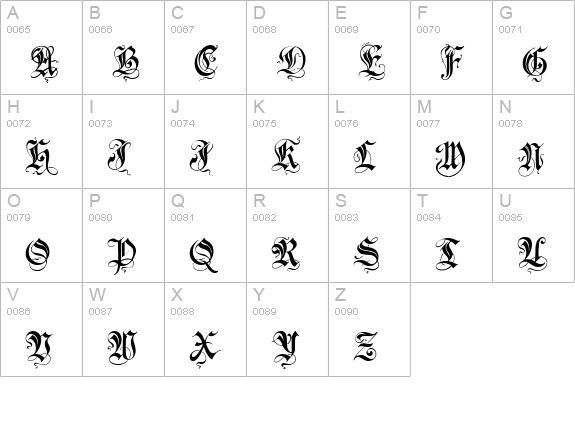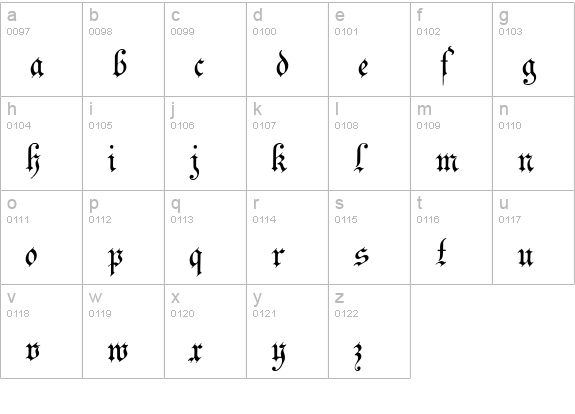
Zenda Font Details
Introducing Zenda font, a modern and stylish typeface perfect for a wide range of design projects. With its sleek lines and elegant curves, Zenda exudes sophistication and class while still maintaining a touch of playfulness. This versatile font is ideal for branding, logos, invitations, posters, and much more. Best of all, Zenda font is completely free to download at FontsMarket.com. With just a few clicks, you can add this beautiful typeface to your font collection and start creating stunning designs in no time. Don't miss out on this fantastic opportunity to elevate your projects with the timeless beauty of Zenda font. Download it today and let your creativity shine!